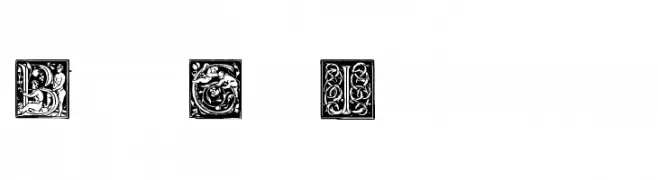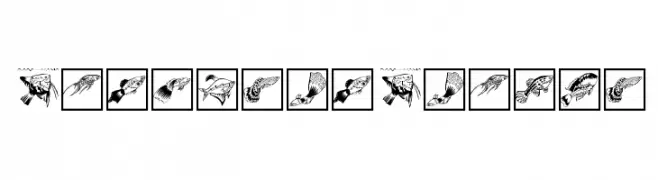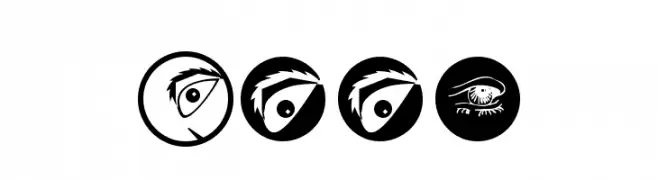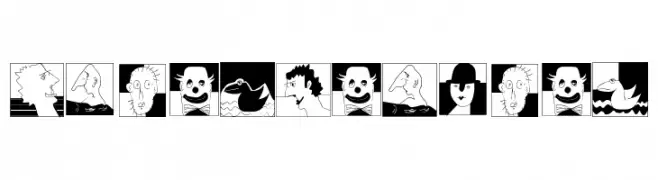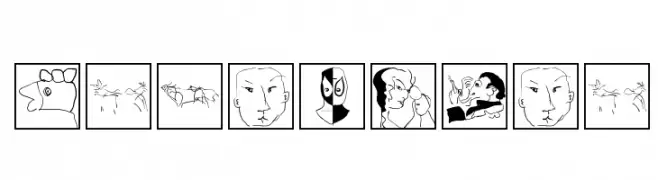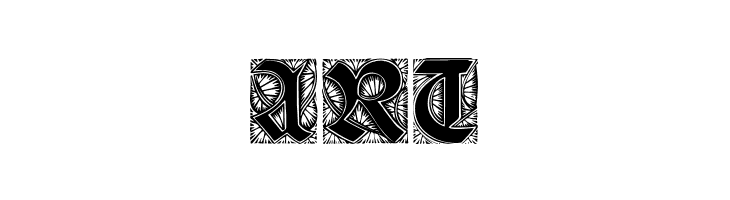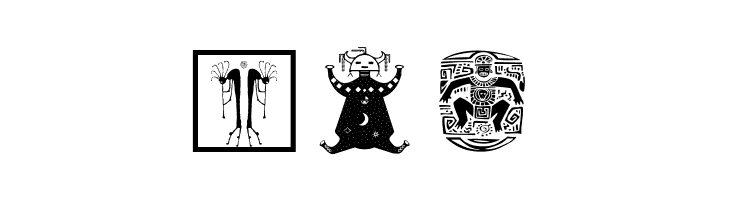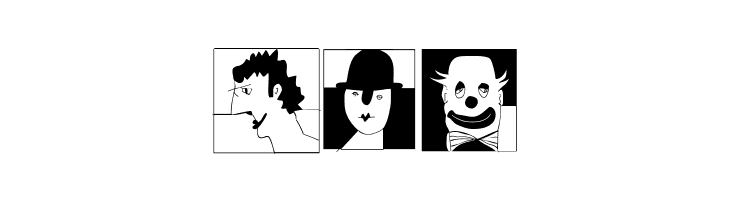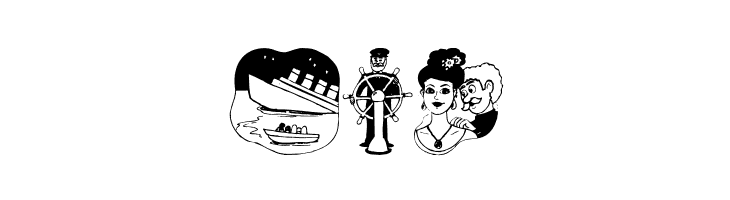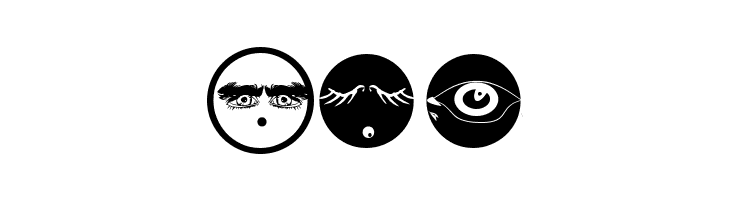
• Barock Initialen
An ornate, Baroque-inspired decorative font with intricate floral designs.
• Ehmcke-Schwabacher Initialen
An ornate, Gothic-inspired decorative font with intricate patterns.
• NativeDesigns
A decorative set of culturally inspired symbols with intricate designs.
• IllustratedAlphabet
A bold, decorative font with artistic illustrations within each letter.
• MouseAsBrush
A quirky, illustrative display font made of cartoonish sketches.
• SwimmingHotelTitanic
A collection of illustrated scenes and characters inspired by early 20th-century life, not a traditional font.
• Look
A whimsical, eye-themed decorative font with circular illustrated glyphs.
• AfricEggs
Hand-drawn, illustrated font with unique portraits for each character.
• MsKetches
Hand-drawn sketch illustrations replace standard characters in a playful, artistic style.
• FischersFritze
A whimsical decorative font using fish illustrations as characters.